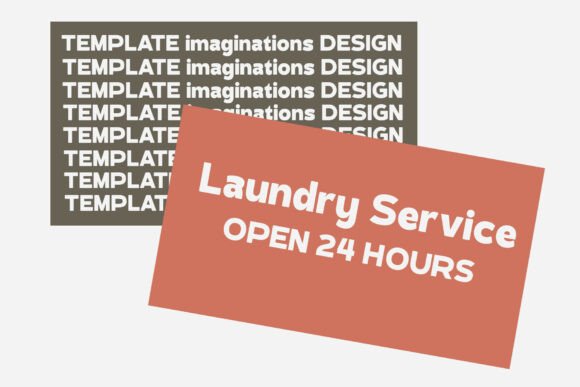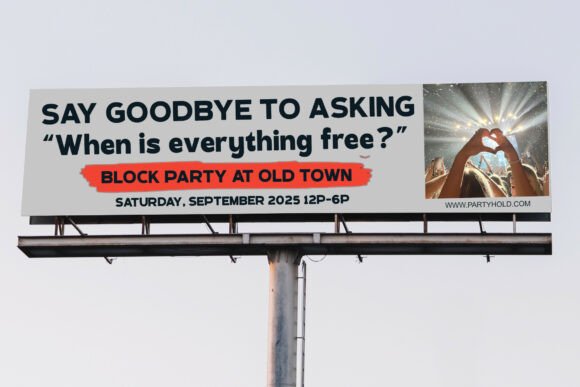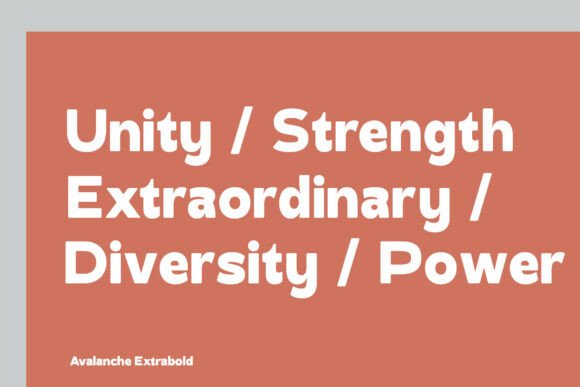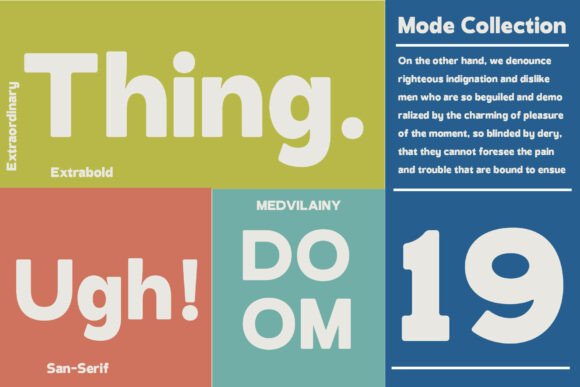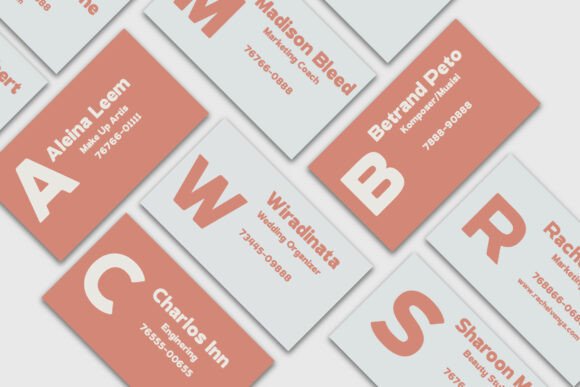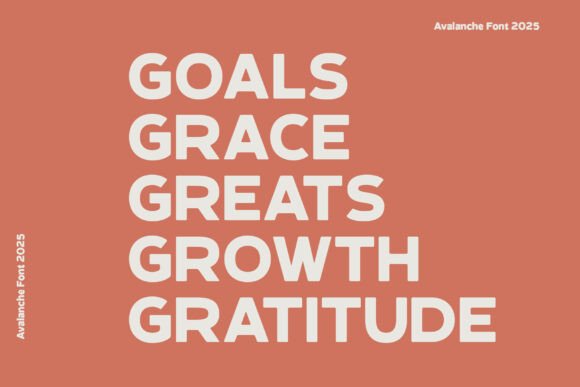
The Perfect Storm of Creativity: Introducing Avalanche Font
As a designer, you know that moment when an idea strikes, and everything falls into place. It’s a rush of excitement, a spark of inspiration that sets your creative juices flowing. For many, it’s the search for the perfect font that sets the tone for a project’s success. And that’s where the Avalanche Font comes in – a powerful, high-impact modern sans-serif display font that demands attention and commands respect.
Characterized by its bold, geometric structure and clean, minimalist lines, the Avalanche Font exudes a sense of strength, stability, and professional sophistication. Whether you’re working on a book, magazine, or logo, this versatile typeface is the perfect companion to help you convey your message with confidence and style.
With its subtle yet distinctive details and contemporary aesthetic, the Avalanche Font is a valuable addition to any designer’s toolkit. Its perfect balance of curves and sharp terminals makes it a timeless choice that will never go out of style. And with its multiple font formats, including Opentype, TruType, and Woff, you can rest assured that your designs will be compatible with any platform or device.
Avalanche Font Key Features
- Font Family: Avalanche Font is a sans-serif font family that offers a unique and modern design.
- Unique Characteristics: Avalanche Font features a distinctive and futuristic design, with clean lines, geometric shapes, and a bold, modern aesthetic.
- Character Set: Avalanche Font includes a comprehensive character set, including uppercase and lowercase letters, numerals, punctuation marks, and special characters, making it suitable for a wide range of applications.
Avalanche Font Review
Avalanche is a sans-serif font that screams modernity and sophistication. I love how it makes my designs look clean and minimalistic ✨ The font’s geometric shapes and clean lines give it a very modern feel that’s perfect for tech companies, startups, and any brand that wants to appear cutting-edge.
One of the standout features of Avalanche is its high legibility, making it perfect for body text. It’s also surprisingly versatile, working well for titles, headings, and even display text ✨ The font’s x-height is also quite large, which makes it easy to read even at small sizes.
- ⚠️ Limited font pairing options: Avalanche’s modern design might make it challenging to pair with more traditional fonts, so you might need to get creative with your font combinations.
- ⚠️ Not ideal for serif-based designs: If you’re working on a design that requires a lot of serif-based typography, Avalanche might not be the best choice.
Overall, I’d say Avalanche is a solid choice for modern designs that require a clean, minimalistic look. While it has some limitations, its high legibility and versatility make it a great option for many projects. Just be mindful of the font pairing options and serif-based designs, and you’ll be good to go!